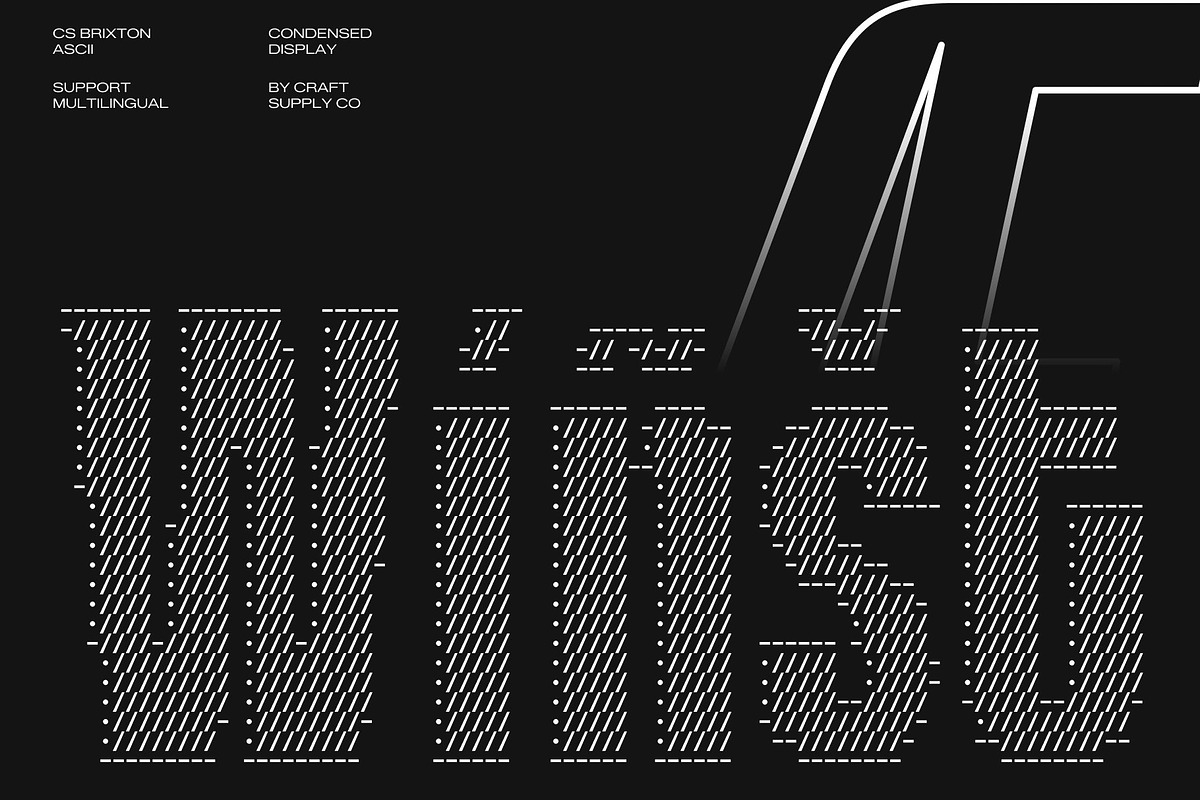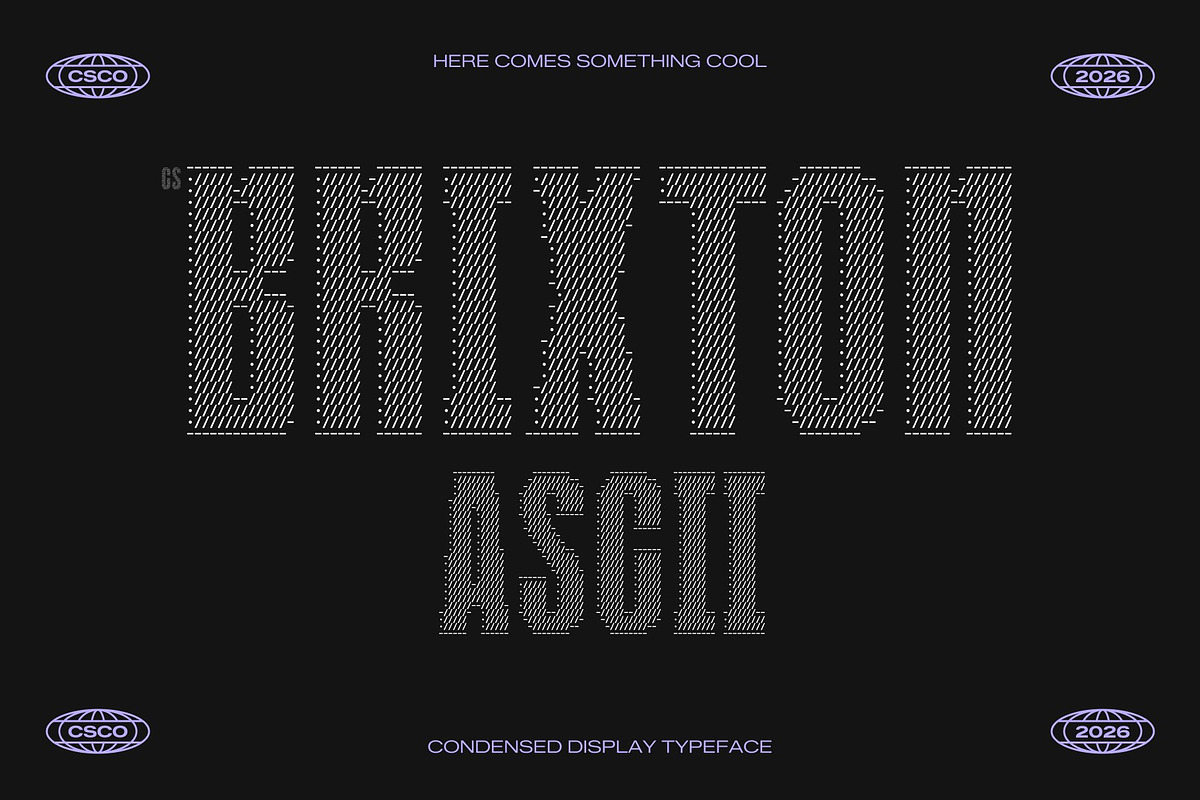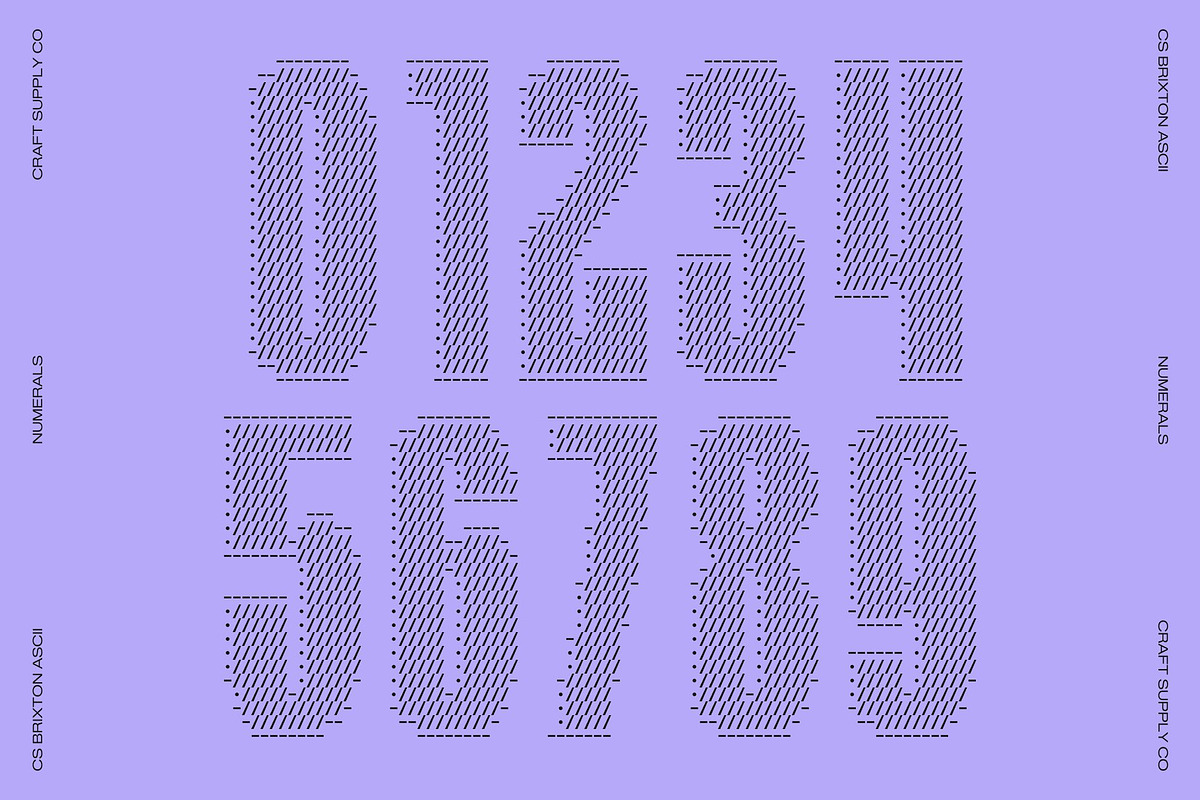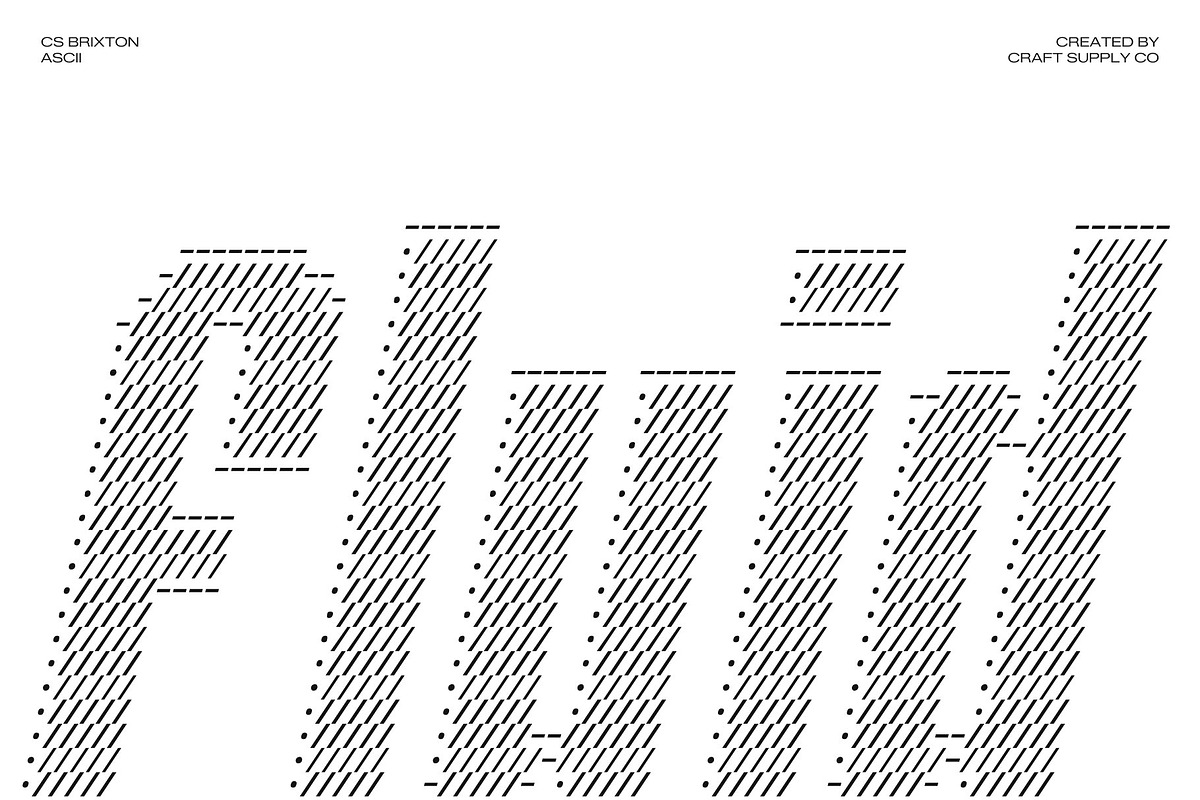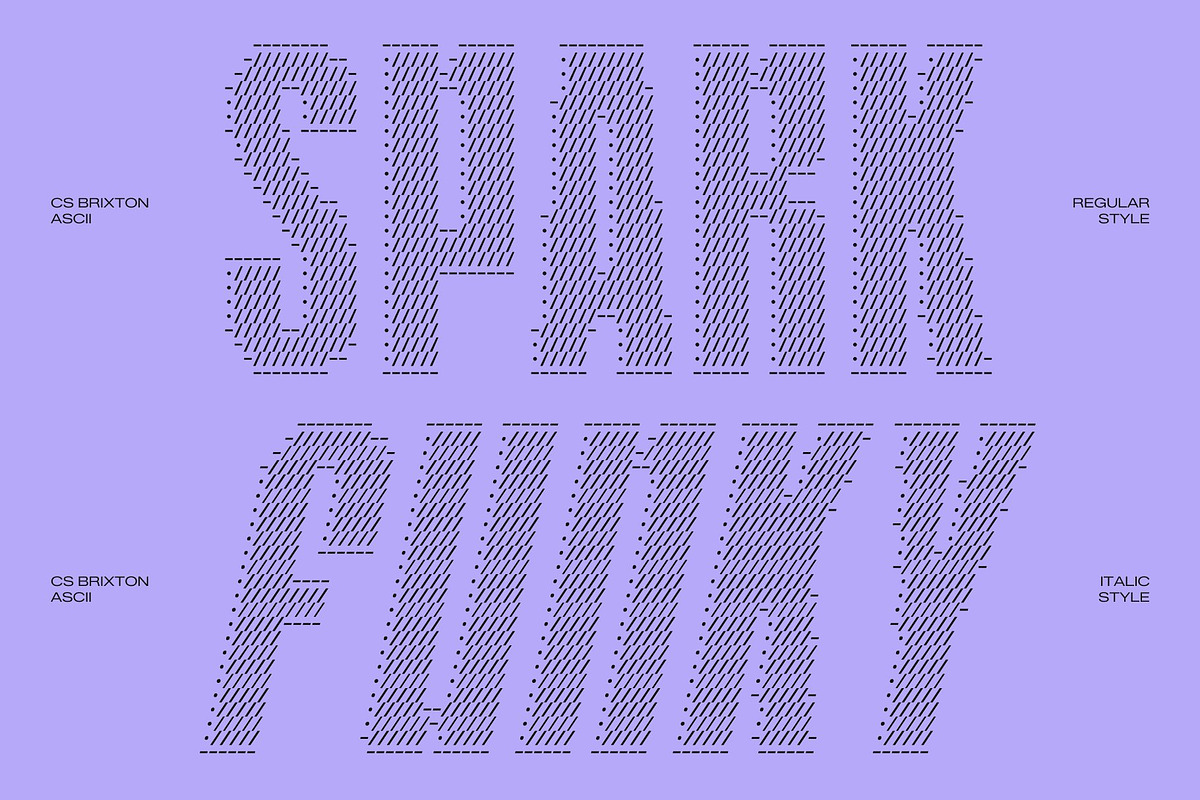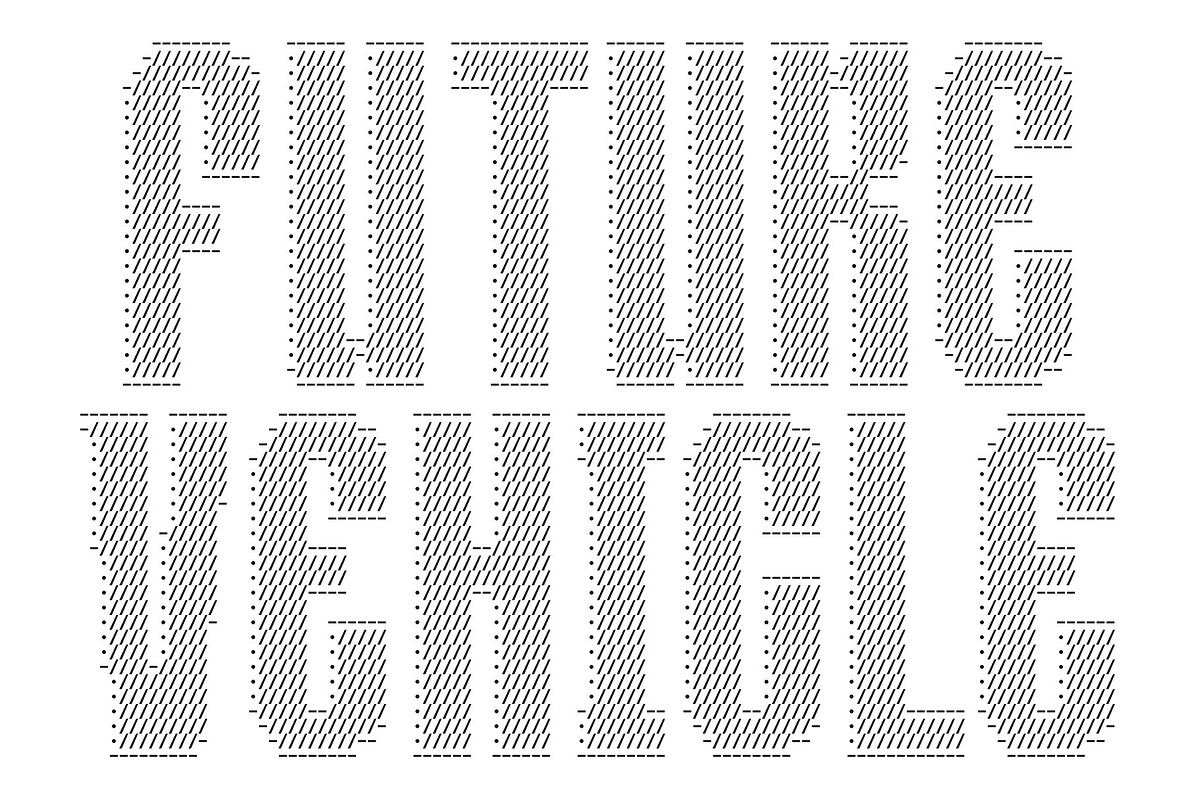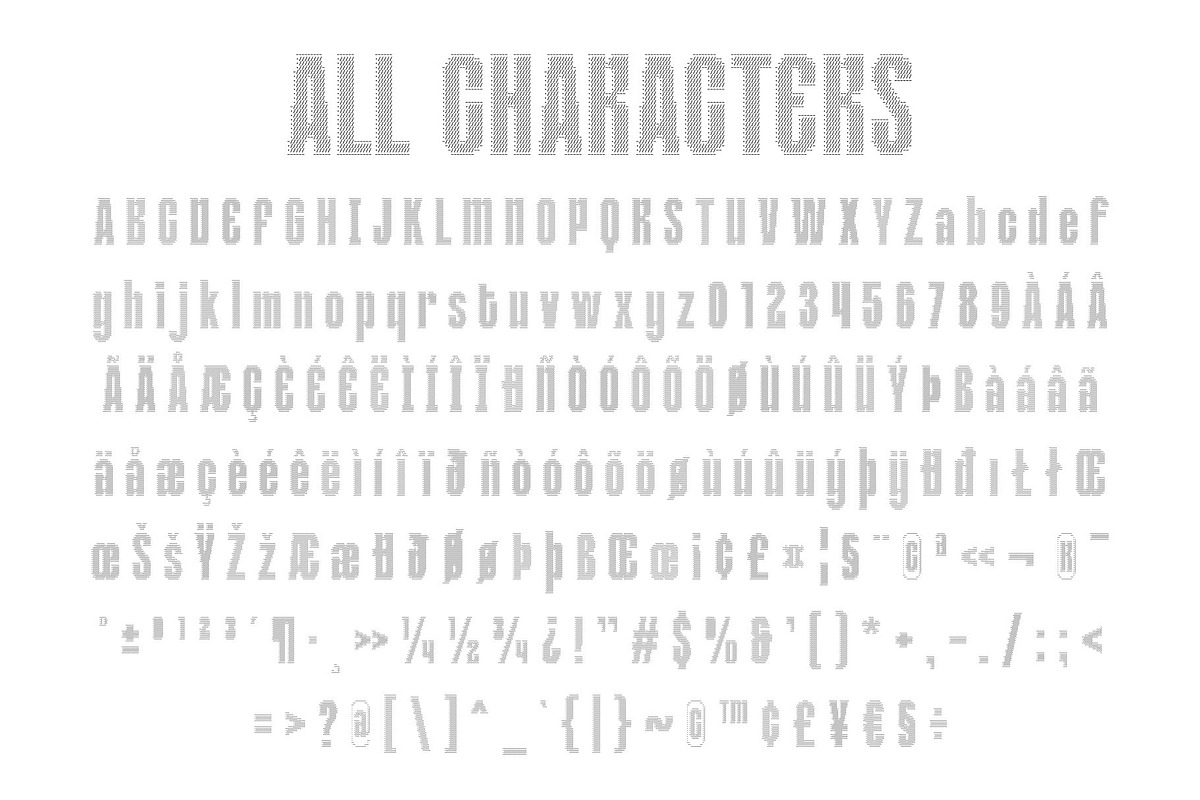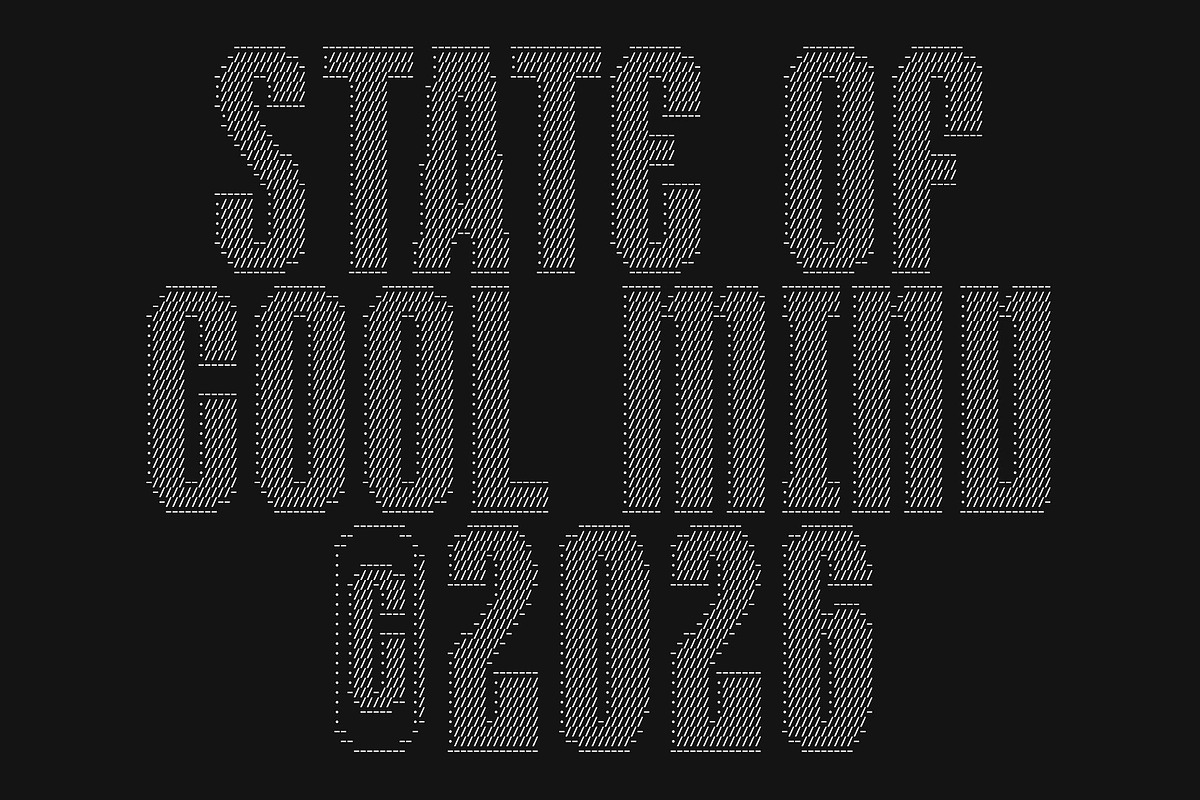
CS Brixton Ascii
CS Brixton Ascii – Bold Modern Sans Serif with Digital Style
Confident Letterforms Rebuilt in ASCII This transforms the strong presence of a bold modern sans serif into a visually striking ASCII display font. Each character is crafted from carefully arranged symbols, turning text into decorative digital compositions that immediately capture attention. The clean geometry and balanced proportions remain intact, while the ASCII styling introduces a distinctive technological texture that feels fresh and expressive.
Sleek, Stylish, and Distinctive The bold structure of this font creates a confident and fashionable tone that feels both professional and creative. Its tightly constructed letterforms maintain clarity while delivering a cool, trend-forward personality. This combination of strength and style makes the font ideal for projects that demand both visual impact and modern sophistication.
Designed for Standout Branding and Visual Communication This font excels in logos, product labels, website headers, promotional graphics, and social media campaigns. The bold shapes ensure strong readability, while the ASCII construction adds a unique layer of visual interest that sets designs apart. It turns simple headlines into eye-catching typographic statements that stand out across digital and print platforms.
Perfect for Fashion, Tech, and Creative Campaigns From fashion branding and streetwear visuals to digital marketing and creative storytelling, this font adds personality and confidence to every design. It brings a fusion of modern typography and digital artistry, helping designers create memorable visuals that feel sharp, stylish, and unmistakably contemporary.
CS Brixton Ascii Regular
CS Brixton Ascii Italic